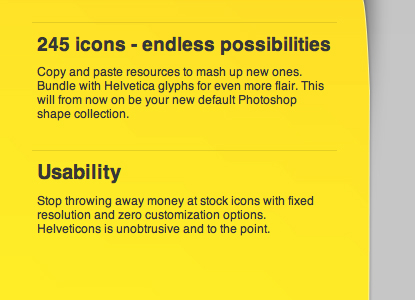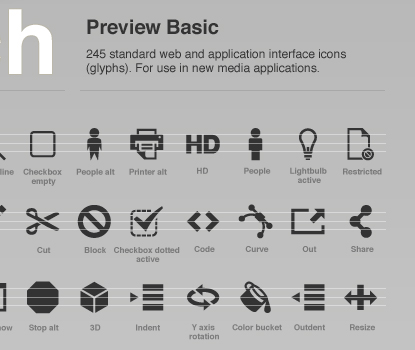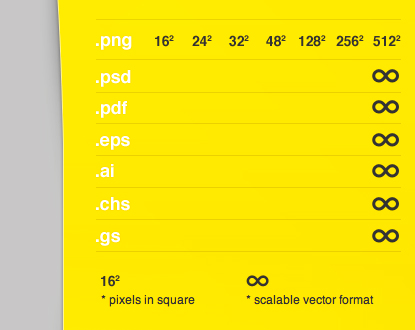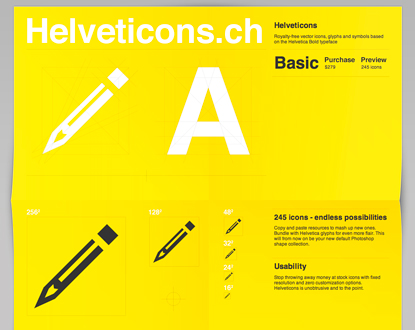
helveticons
I love Helvetica and I love the color yellow, so imagine my delight when I stumbled upon the new website for Helveticons, which are described as “icons, glyphs and symbols based on the Helvetica Bold typeface.” The accompanying website is beautiful, as are the icons themselves; and despite a few very minor flaws, I am in love with the Helveticons website.
Layout & Color
When I first visited Helveticons, I first noticed the very cool (and very well done) background graphic placed behind the content. Designed to look like an unfolded poster, the striking yellow graphic not only caught, but even held my interest due to the designer’s obvious attention to detail. As any good typographer knows, a well thought out grid is essential to good typography (and vice-versa), so the idea of an unfolded poster background on a website helped create something that is very rarely seen in web design today: a modular grid. In addition to the apparent 8-column vertical grid, the modular grid keeps content structured into sections in ways that are most commonly found in print work.
A mix of grey, yellow and white are used sparingly throughout the design, adding a nice sense of contrast to an otherwise very rigid design—as Swiss design tends to be. Dark grey is used primarily for body copy and headlines, while white is reserved for the larger headlines along with many of the example icons used on throughout the site.
Typography
The only typeface used across the design is Helvetica, and it can be found via both HTML text and via image replacement. Helvetica is an incredibly versatile typeface, and while it can be used to great lengths, it can just as easily be abused. For the Helveticons website, it’s used wonderfully. Spanning a variety of type sizes, making the process of scanning each section incredibly easy.
Something else I feel I should point out is the use of padded elements across the site. Text is inset by a few pixels, which as you’ll read in Khoi’s post, Nudge Your Elements, is nearly always a wise choice.
Criticism
After looking a little more closely at the details, I found there to be several small issues. First order of business: increase the leading! I understand there is a baseline grid that needs to be kept in tact, but increasing the line-height on the body copy would make the content of the site far easier to read.
Second: watch the letter spacing! Although I was enamored by the fact that Helvetica was used so prominently in this design (and in the product the website represents), the main title is in dire need of decreased letter spacing. Tightening the main title’s letters would be icing on the cake, details wise, but it’s really not hard to do—it’s an image, not HTML text.
There are a few sections of the site that could’ve (and should’ve) been done with HTML/CSS, namely the list of icon sizes and formats down on the left-hand side. With a bit of CSS3’s text-shadow property, this section could’ve been replicated in a more accessible manner. But it’s beautiful none-the-less.
Some smaller issues I came across include the use of grey for the most of the text. Specifically, #363636 is used for both text and icons, and when set on a bright yellow background, it seems to blend in a little too much. Increasing the type’s contrast by changing the color to #262626 would greatly help.
One last critical note: underneath the section “Inspirational”, the designer mistakenly used a hyphen instead of an em-dash. Typographic blasphemy, I tell you!
Yes, I’m nitpicking.
Conclusion
I really can’t get over how awesome the Helveticons website is. Everything about it reminds me of printed design, while at the same time, it feels so digital. It really is hard to explain, but when a design on the web is able to bridge that gap, serious progress has been made. As a fan of Swiss design, Helvetica, yellow, and grids, it really was love at first sight.
‘Disgusting’ hyphenage in the ‘245 icons - endless possibilities’ heading too. I personally take the view that en dashes are more effective - they don’t interrupt the flow of the text - and that if en dashes must be used, don’t put spaces around them. But there is no right or wrong answer; it’s just the designer’s preference. They’ve used the spaced em elsewhere there, so it makes sense to make it consistent.
Nothing wrong with nitpicking. Nits are nasty.
Note that there are rules in English for when to use en and em dashes.
Nice review, more constructive criticism to the world! \o/
What’s with the low line-height?
@Tor The line-height is my lingering issue as well, but none-the-less, it is a beautiful site.
Yes, and the icons…!
Awesome layout, love the vivid yellow and the css is tight.
But nothing compares to the page folds…
Really is an awesome effect to make this layout have some punch!
Page fold is an excellent idea, I’m not crazy about its execution though, not too realistic. Really like the icon preview effect, very neat. I wonder what was their reason to use such a tight line-height? Surely with the otherwise great implementation of grids and typography, they must be aware of line-height and legibility as well.
Nice site indeed.
+1 vote for the awesome page folds. The site has some accessibility issues which you can see when disabling all CSS. The header image doesn’t un-style(word?) gracefully